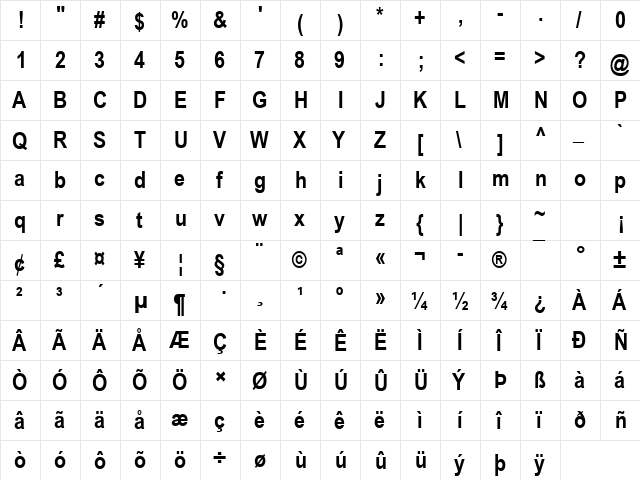
Arial Narrow Bold
| Foundry | Monotype Typography, Inc. |
| Designer | Robin Nicholas, Patricia Saunders |
Design Context for Arial Narrow Typeface
Arial Narrow takes a measured approach to typography — its balanced proportions and neutral character make it a reliable workhorse for both digital and print work. Its bold stroke weight gives it real presence on the page. The condensed width makes it efficient for tight spaces without sacrificing legibility.